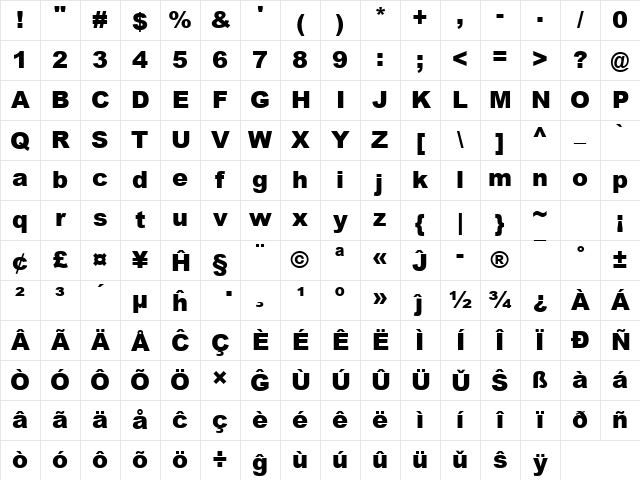
Complete Arial MT Black Eo Regular glyph index. Displaying only characters natively supported by Arial MT Black Eo Regular font.
Arial MT Black Eo is a composed and adaptable typeface that performs quietly and consistently across a wide range of design contexts.